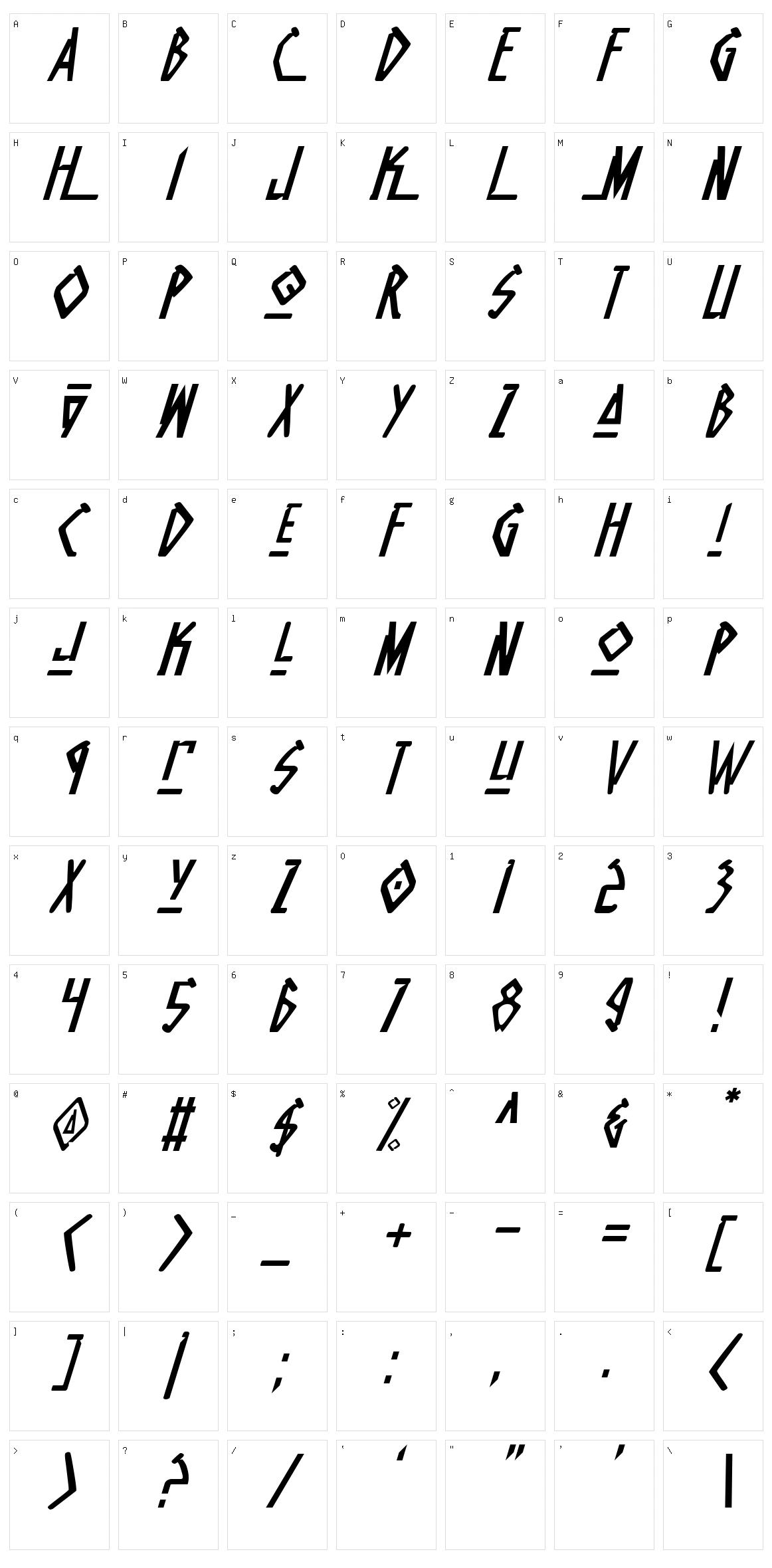
Native Alien
2001 Iconian Fonts - Daniel Zadorozny
"Native Alien" was named by Abalanda Sullivan
This font has alternate letters between the upper and lower cases.
This font comes with the following 3 versions: Regular, Italic and Extended.